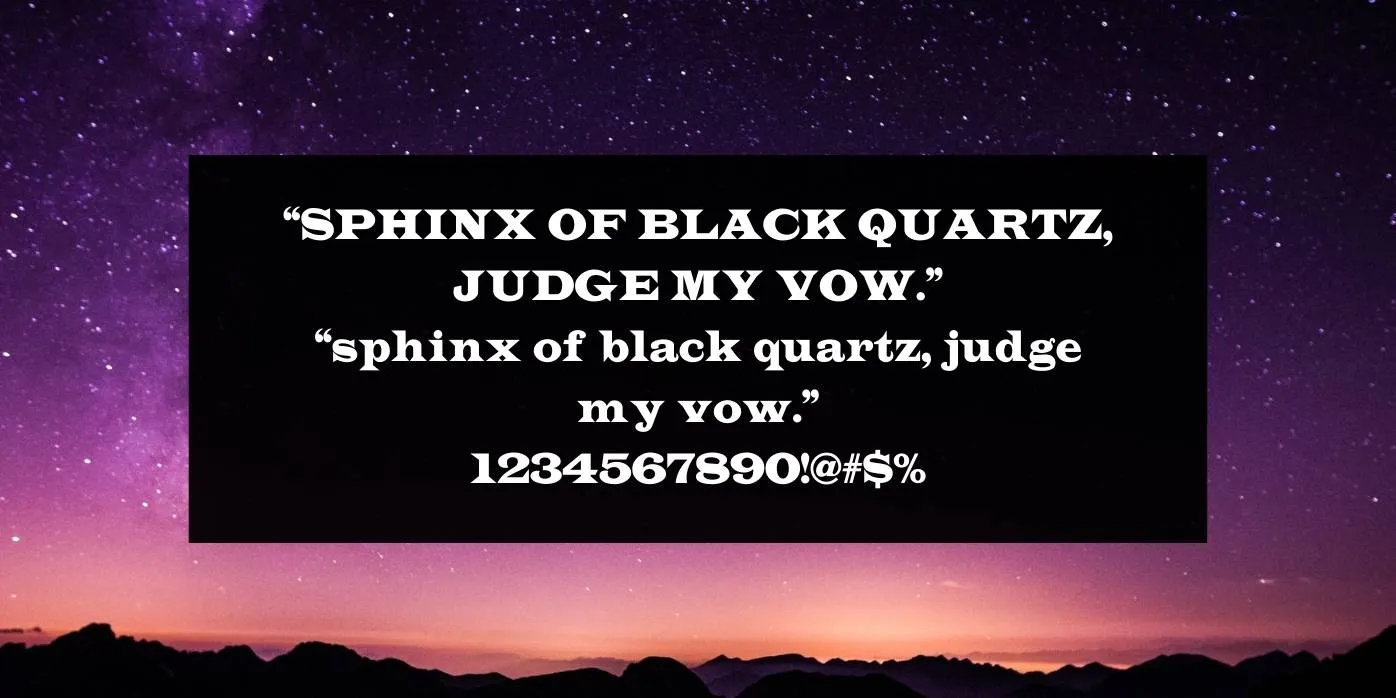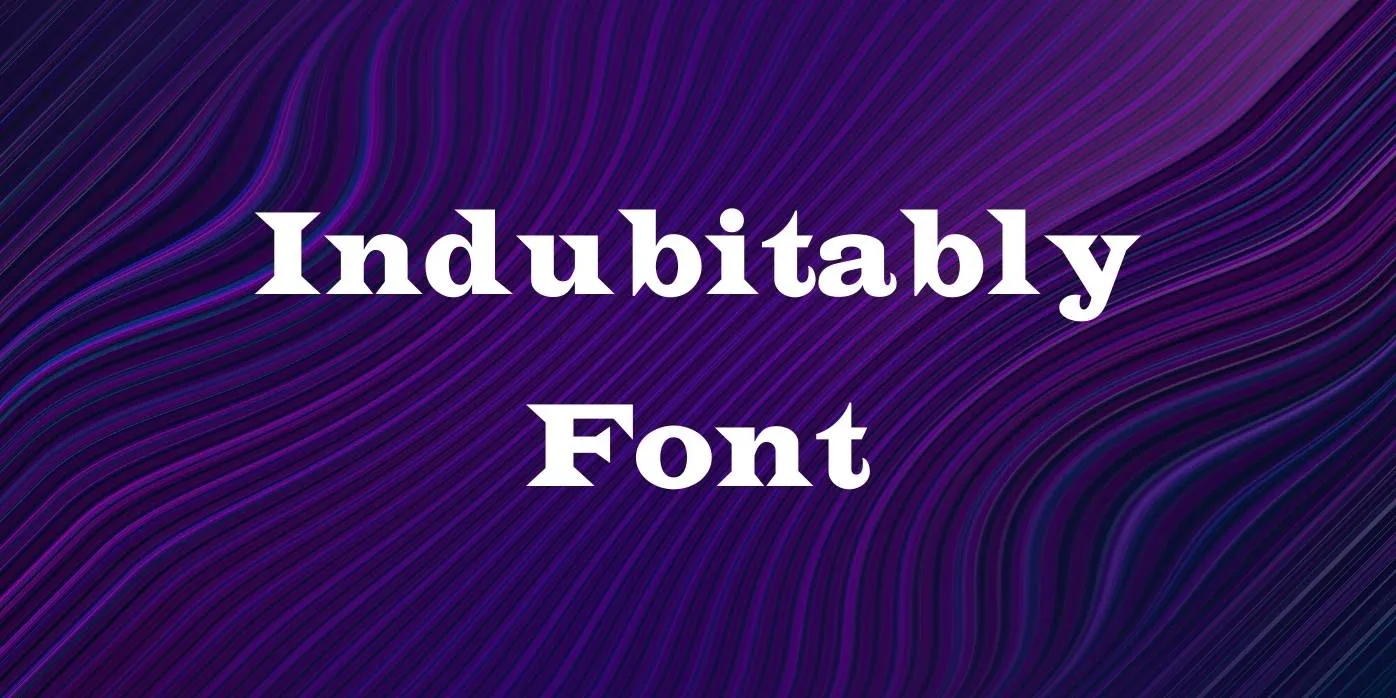
Indubitably Font
Indubitably Font is a display typeface created by American-type designer Tobias Frere-Jones in 2000. The design is based on the work of 19th-century German type foundry H. Berthold AG. The Font family includes four weights—light, regular, bold, and black—each with corresponding italics.
It is much similar to the pubg Font and you can make many stunning arts and illusions with the help of this font. The fonts are available in both TrueType and OpenType formats. The Font family has been used by a number of major publications, including The New York Times, Newsweek, and Time. In addition, the font family has been used for the branding of several companies, including Google and Microsoft.